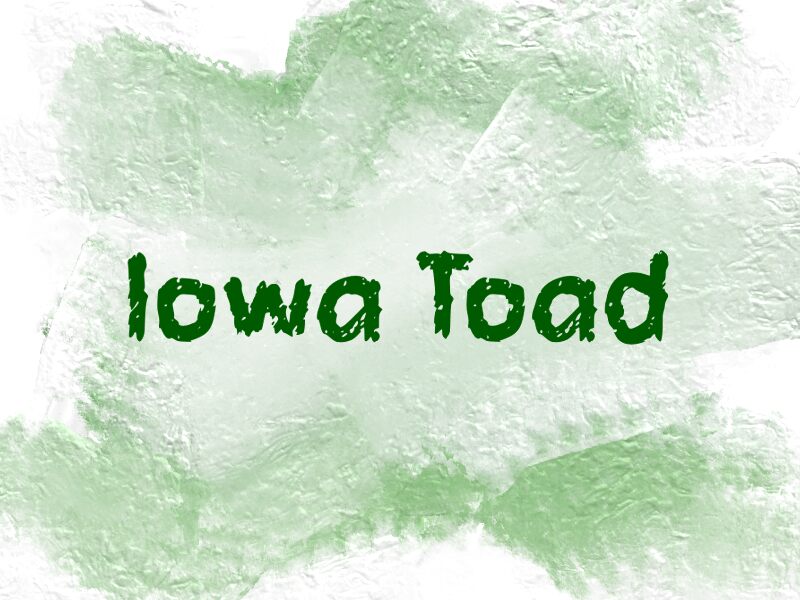
i Iowa Toad font by wepfont.com is a free informal font with a distinct grungy effect. This typeface embraces a natural and imperfect aesthetic that looks hand-crafted yet slightly uneven; offering expressive designs with textured and distressed impressions. The letters look bold with a moderate weight that allows them to remain legible even at smaller sizes.
Logos, slogans, packaging, labels, posters, book titles, and social media posts are all potential areas of use. As an expressive font, i Iowa Toad will also suit editorial publications, magazines, comics, website headers, CD covers, and more.
Iowa Toad is a captivating free font that brings a unique flair to your designs. This font features playful curves and distinct characters, making it ideal for various creative projects. Whether you are designing posters, invitations, or digital artwork, Iowa Toad adds a touch of whimsy and charm.